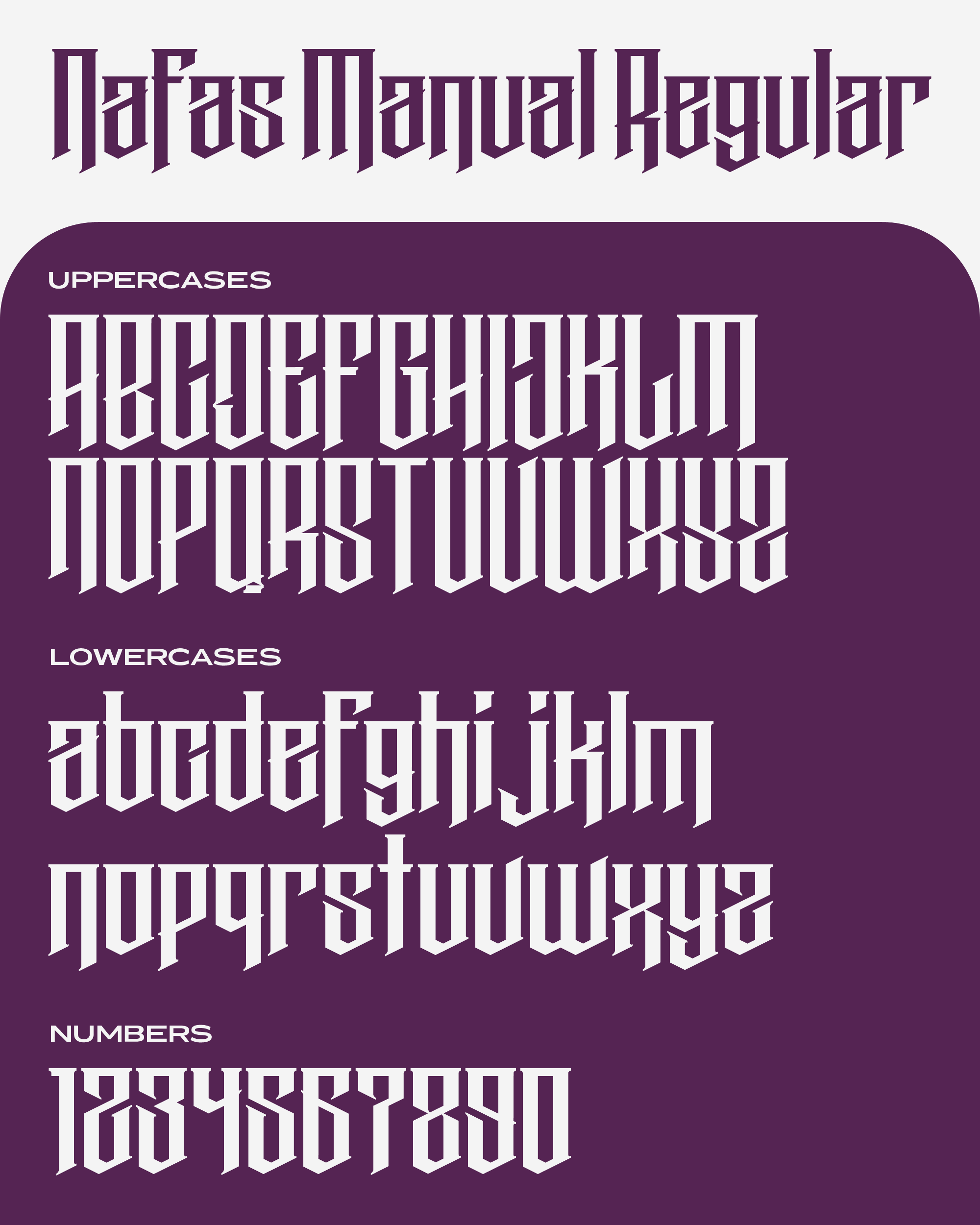
Nafas Manual Font
Nafas Manual Display Font
This is my first ever font, Inspired by blackletter and victorian style lettering. It consist of 2 types of font, the regular and the sliced. It also contains uppercase, lowercase, as well as numbers only. It is free to use for personal and commercial.